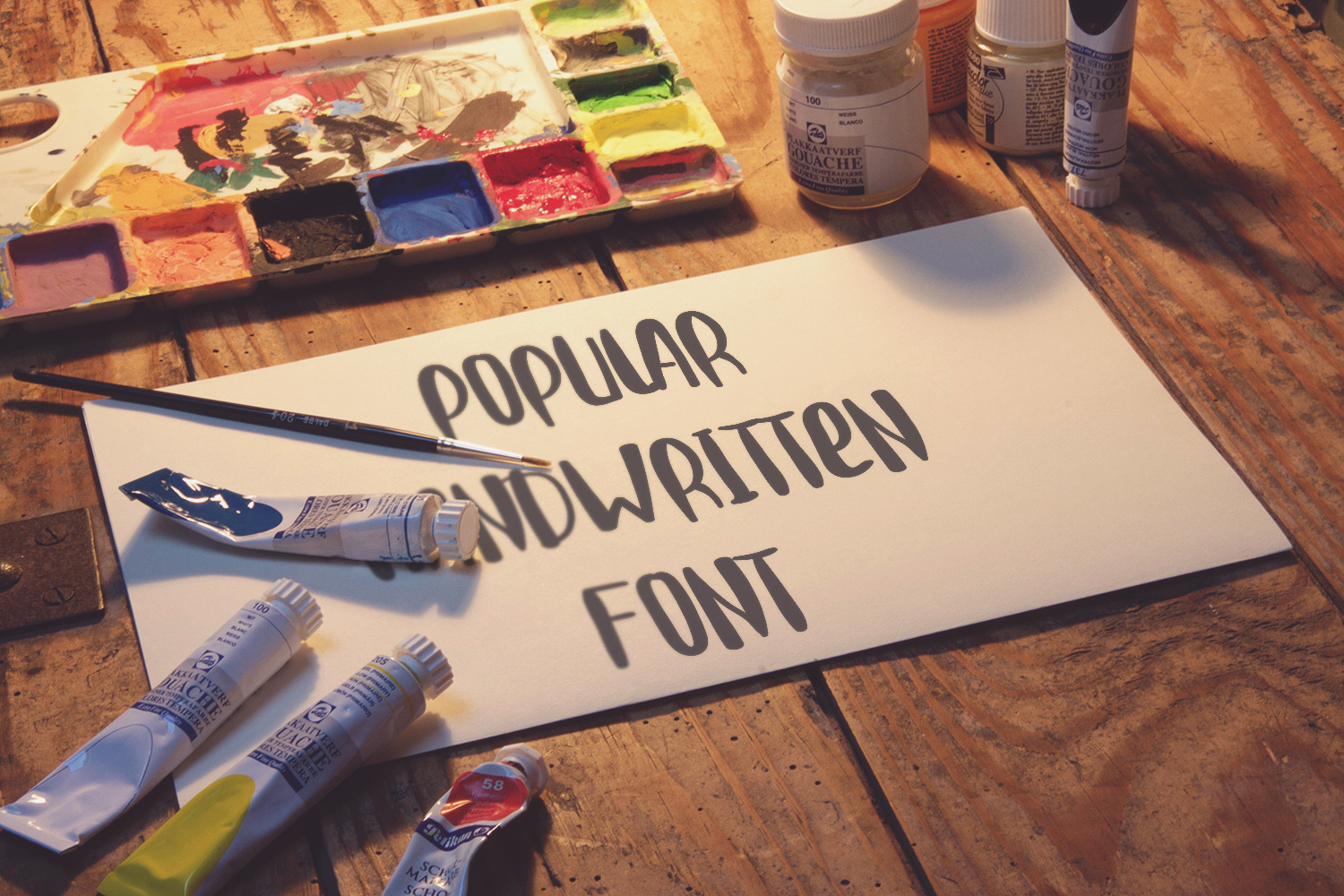
Fresh Popular OTF font decorates youth design, packaging design, handwritten cards and greetings for various holidays: mother's day, father's day, Halloween, Christmas, Easter, thanksgiving and summer seasonal offers. This bright handwritten font suitable for the decoration of restaurants menu, T-shirt print.
Popular Font - hand drawn script font containing upper & lowercase characters, numerals and a large range of punctuation and unicodes symbols. No special software is required to use the Popular Font.